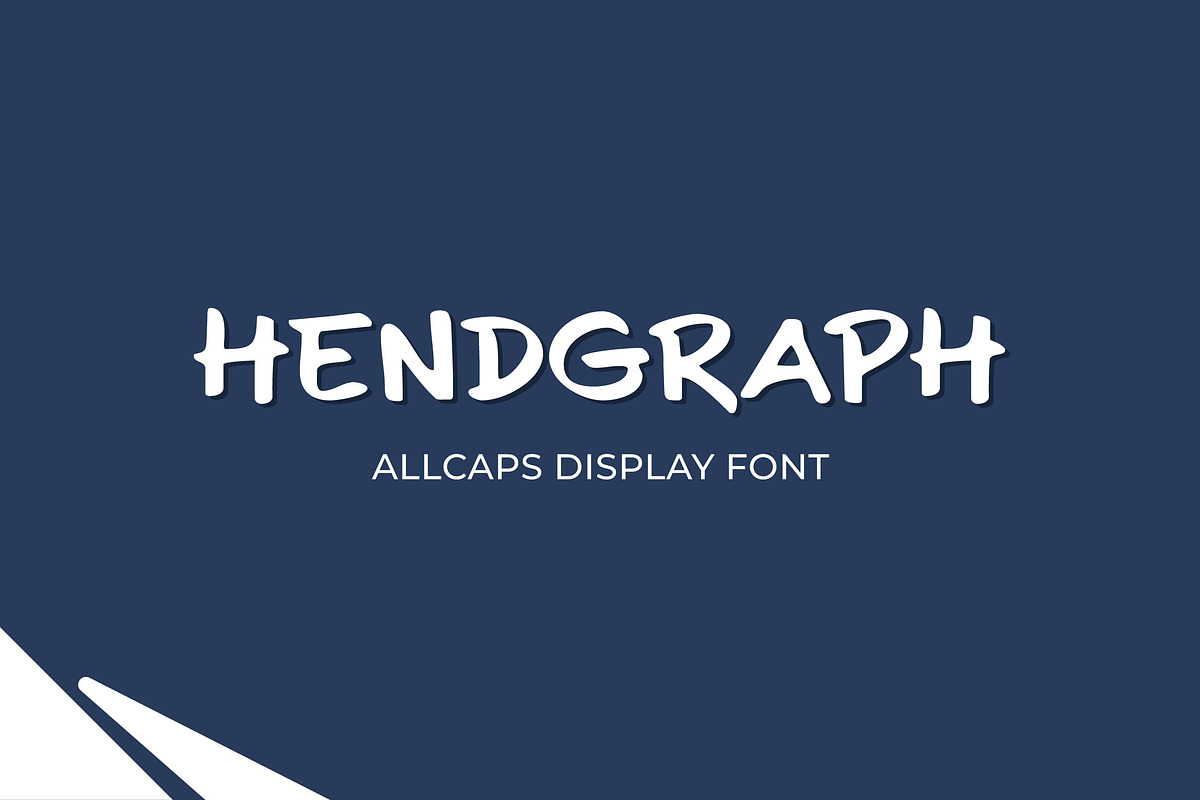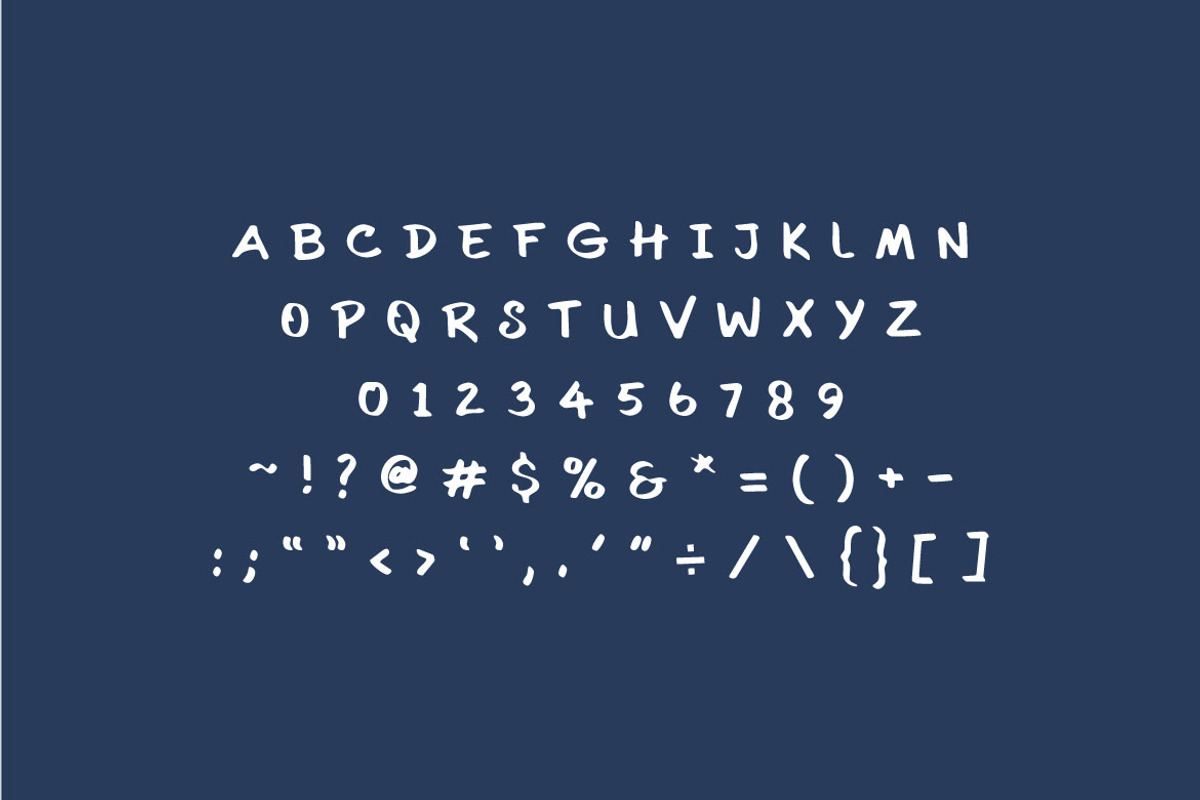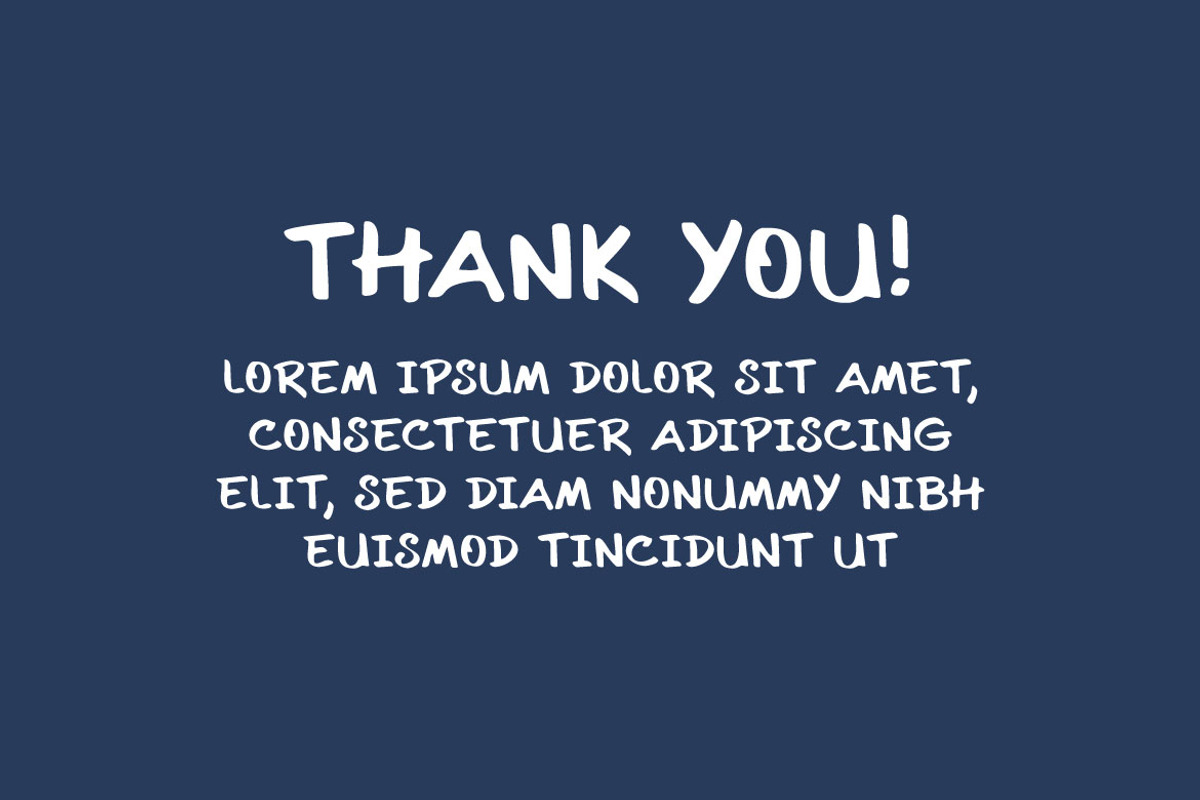
Hendgraph - Unique Display Font
If you are looking for a modern and unique display font, meet HENDGRAPH
Hendgraph is perfect for any works, such as your comic, poster, card, book title, headline of news, banner, flyer, stationery and many more. It also can be used in any scale work.